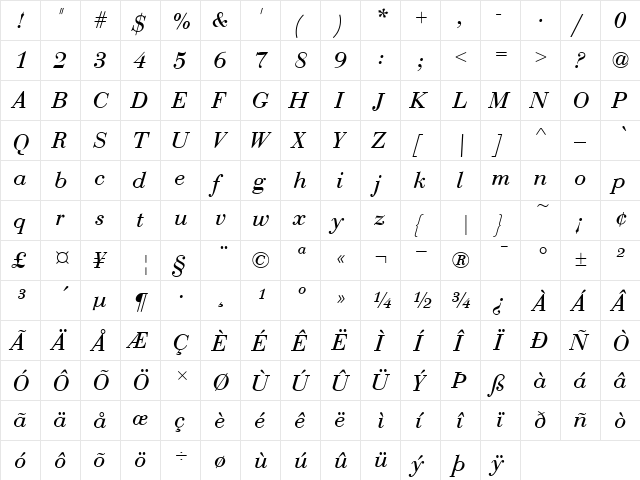
Bauer Bodoni T Italic
Bauer Bodoni T offers clean, dependable letterforms without strong stylistic allegiance, making it a practical choice for designers who need flexibility. The dynamic lean of this cut emphasises speed and emphasis in any layout.
Pro Tip: Use Bauer Bodoni T for emphasis, pull quotes, and subheadings where its slanted energy can add rhythm to the layout.